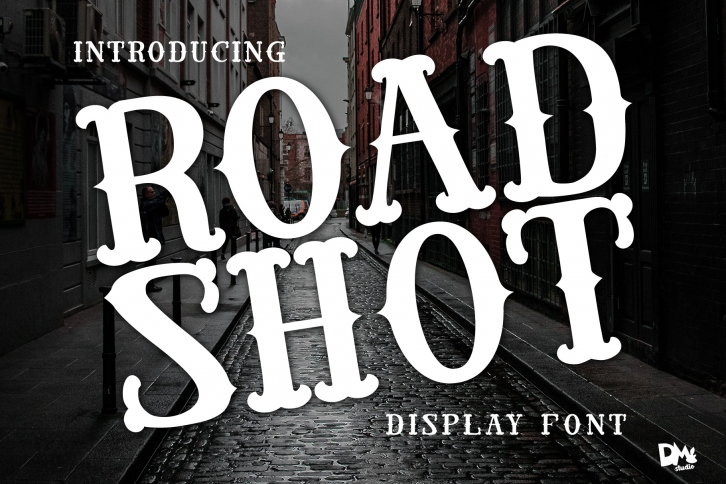
Road Shot - Display VIntage Font Download
Road Shot is a gorgeous font that was realeased on June 3, 2019. The font can be used in many style contexts and design environments. Perfect for invitations, magazines, websites, logos, and more! It was designed by DMletterstudio and the file size is 6.27 MB. Thanks for checking out this font!